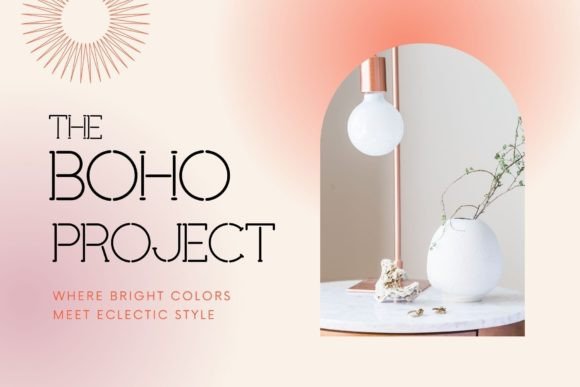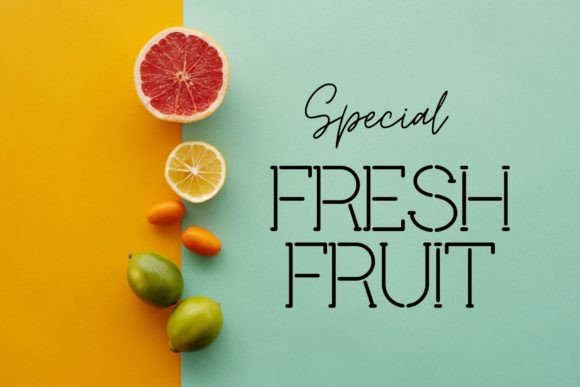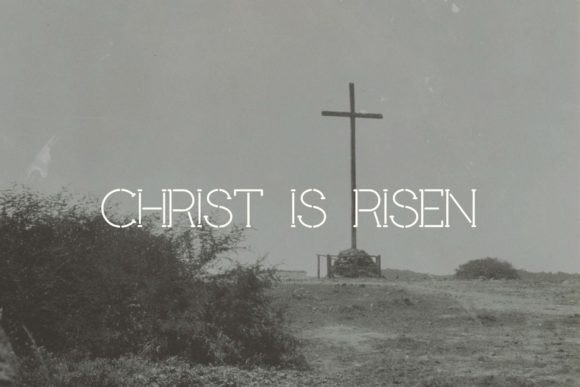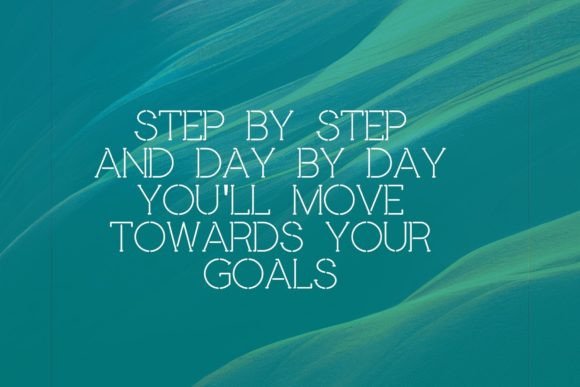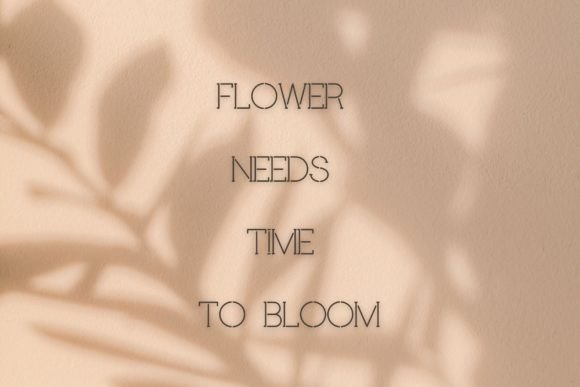
Introduction to Provender Font
Unveiling Provender, a typeface intricately reimagined and meticulously chiseled to perfection.
It now boasts an expanded array of weights and glyphs, enhancing its versatility and adaptability With every stroke and curve masterfully re-drawn and re-designed and character to every piece of text.
Key Features of Provender Font